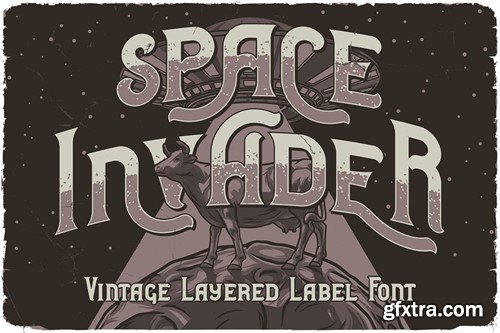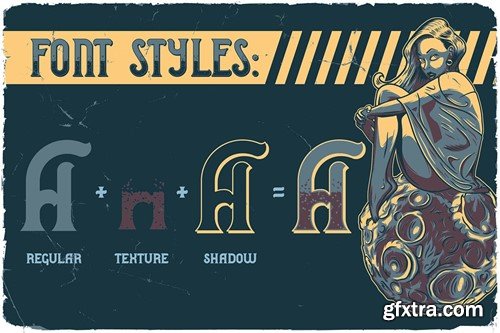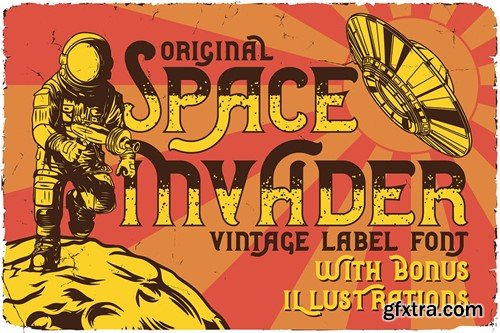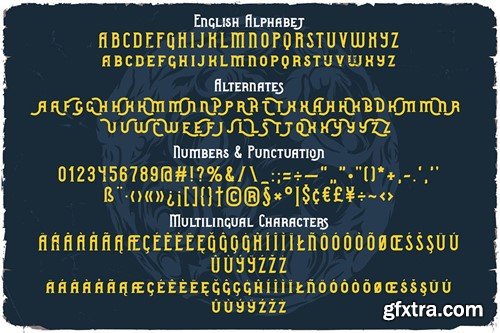
太空入侵者显示字体Z2S7RKL
Space Invader Display Font Z2S7RKL
Space Invader Display Font
Unique, playful, vintage & decorative serif font. Comes with multilingual support & alternates - great for your new logo or branding project.
• Multilingual support and alternates
• Great for retro or vintage style branding projects